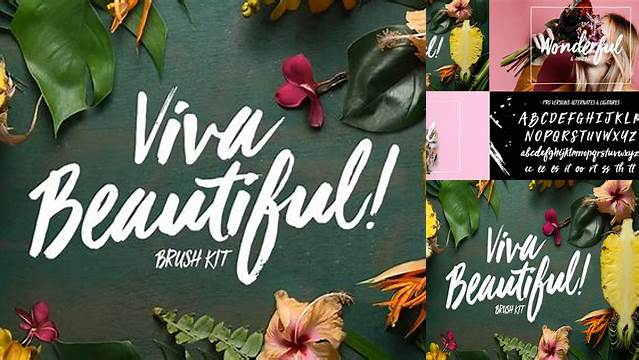
Viva Beautiful Font: Free Download & Usage Guide
Hey guys! Are you looking to add a touch of elegance and sophistication to your designs? Then, look no further! The Viva Beautiful Font is here to save the day. In this article, we'll dive deep into everything you need to know about this fantastic font, from where to download it for free to how to use it effectively in your projects. Let's get started!
1. What is Viva Beautiful Font?
Viva Beautiful Font is a stylish and versatile typeface that's perfect for a wide range of design projects. It features elegant curves and a modern aesthetic, making it ideal for everything from logos and branding to invitations and website headers. With its clean lines and balanced proportions, Viva Beautiful Font adds a touch of sophistication to any design. The font has gained immense popularity among designers due to its versatility and unique appeal. It can be used effectively in both print and digital media, making it a valuable asset for any creative project. Whether you're designing a sleek corporate brochure or a whimsical wedding invitation, Viva Beautiful Font can help you achieve the perfect look. Its adaptability and timeless elegance make it a go-to choice for designers seeking to elevate their work.
2. Key Features of Viva Beautiful Font
One of the key features of Viva Beautiful Font is its elegant and modern design. The font features smooth curves and clean lines that give it a sophisticated look. It also has a wide range of weights and styles, allowing you to create different effects. The versatility of the font makes it suitable for various design applications, from branding to editorial design. Moreover, Viva Beautiful Font includes a comprehensive set of characters, including uppercase and lowercase letters, numerals, punctuation marks, and special symbols. This extensive character set ensures that you have all the necessary tools to create professional-looking designs. The font also supports multiple languages, making it a global choice for designers working on international projects. Its attention to detail and commitment to quality make Viva Beautiful Font a standout choice in the world of typography.
4. Using Viva Beautiful Font in Logos
Using Viva Beautiful Font in logos can give your brand a distinct and memorable identity. Its elegant and modern design makes it ideal for creating logos that stand out from the competition. When using Viva Beautiful Font in logos, consider the overall aesthetic and message of your brand. The font's clean lines and balanced proportions can convey a sense of professionalism and sophistication. Experiment with different weights and styles to find the perfect look for your logo. You can also pair Viva Beautiful Font with other fonts to create a unique and visually appealing design. Ensure that the logo is legible and scalable, so it looks good on both small and large screens. By carefully considering these factors, you can use Viva Beautiful Font to create a logo that effectively represents your brand and captures the attention of your target audience.
5. Viva Beautiful Font for Website Design
When it comes to website design, Viva Beautiful Font can be a game-changer. Its elegant and modern design can enhance the overall look and feel of your website. Use Viva Beautiful Font for headings, subheadings, and body text to create a cohesive and visually appealing design. The font's clean lines and balanced proportions make it easy to read on screens of all sizes. Consider using different weights and styles to create visual hierarchy and guide the user's eye. Pair Viva Beautiful Font with other fonts to create a unique and memorable website design. Ensure that the font is optimized for web use to ensure fast loading times. By incorporating Viva Beautiful Font into your website design, you can create a professional and engaging online experience for your visitors.
6. Pairing Viva Beautiful Font with Other Fonts
Pairing Viva Beautiful Font with other fonts can create a visually appealing and harmonious design. When choosing fonts to pair with Viva Beautiful Font, consider the overall aesthetic and message of your project. Look for fonts that complement Viva Beautiful Font's elegant and modern design. Some popular font pairings include sans-serif fonts for body text and serif fonts for headings. Experiment with different combinations to find the perfect balance. Ensure that the fonts are legible and readable on all devices. By carefully selecting fonts to pair with Viva Beautiful Font, you can create a visually stunning design that effectively communicates your message.
7. Viva Beautiful Font in Print Materials
Using Viva Beautiful Font in print materials can add a touch of sophistication and elegance to your designs. Its clean lines and balanced proportions make it ideal for creating brochures, flyers, and business cards. When using Viva Beautiful Font in print, consider the overall aesthetic and message of your project. The font's versatility allows it to be used in various applications, from corporate documents to wedding invitations. Ensure that the font is legible and readable in print. Experiment with different weights and styles to create visual hierarchy and highlight important information. By incorporating Viva Beautiful Font into your print materials, you can create a professional and visually appealing design that effectively communicates your message.
8. Viva Beautiful Font for Social Media Graphics
Viva Beautiful Font can be a great choice for social media graphics, adding a touch of elegance and style to your posts. Its modern and clean design ensures readability and visual appeal on various social media platforms. When using Viva Beautiful Font for social media, consider the overall branding and aesthetic of your profile. Use it for headings, captions, and even within the graphics themselves to maintain consistency. Experiment with different font weights and sizes to create eye-catching visuals that grab attention. Pair Viva Beautiful Font with vibrant colors and engaging imagery to maximize its impact. Ensure that your text is easily readable on smaller screens. By incorporating Viva Beautiful Font into your social media strategy, you can elevate your brand's online presence and engage your audience effectively.